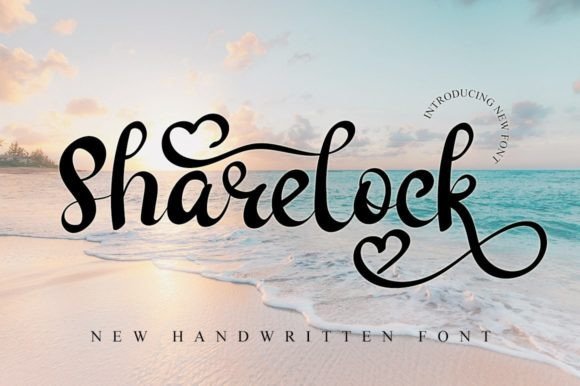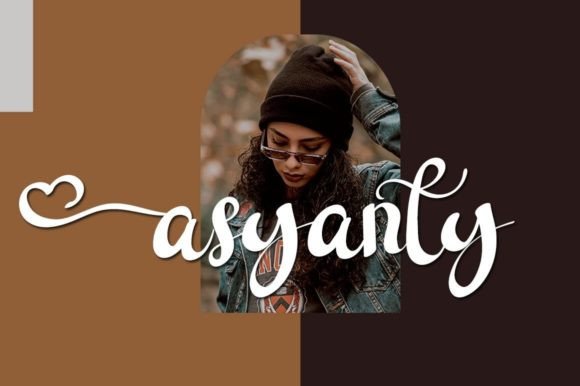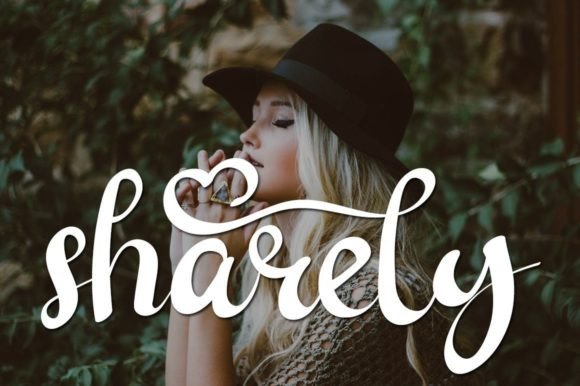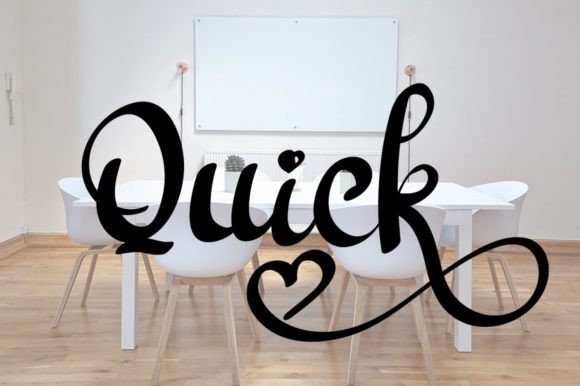
Sharelock Font
About Sharelock Font
Sharelock is a delightful and charming font that radiates beauty, freshness, cleanliness, and elegance. Its versatile nature makes it a perfect choice for a wide array of projects, fitting seamlessly into both formal and informal contexts. With its ability to infuse an incredibly joyful touch, Sharelock adds a distinctive charm to your designs, making them visually captivating and memorable.
The font is well-suited for a variety of applications, from business materials to informal creative projects. Whether you’re creating formal documents, invitations, social media posts, or any other design, Sharelock’s aesthetic appeal contributes to a fresh and sophisticated visual experience.
Sharelock simplifies the design process by providing a clean and elegant typeface that effortlessly enhances the overall look of your content. Its application can transform your business materials, imbuing them with a sense of beauty that elevates your brand identity.
By incorporating Sharelock into your designs, you not only bring visual appeal but also convey a message of freshness and joy. This font serves as a valuable tool to enhance the beauty of your projects, contributing to a more refined and impactful representation.
In summary, Sharelock goes beyond being just a font; it is a design asset that brings beauty, joy, and elegance to a variety of projects. Whether for formal business materials or creative endeavors, this font simplifies and enhances your designs, ensuring that your business looks more beautiful and leaves a lasting positive impression.